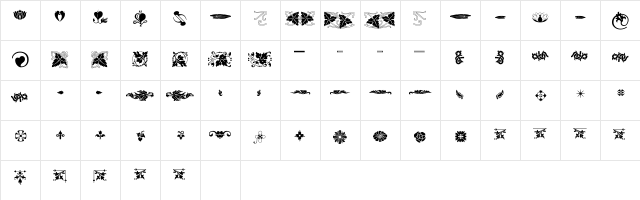
MelicoOrnaments Regular
Design Context for MelicoOrnaments Typeface
MelicoOrnaments is built around its visual character rather than neutral utility — its distinctive forms are designed to make an impression at display sizes.
Font Pairing: Pair with a clean neutral sans-serif for body copy to let MelicoOrnaments's character lead without overwhelming the composition.
Pro Tip: Use MelicoOrnaments exclusively at display sizes — it was designed to be seen, not read at length. Let a neutral companion handle body copy.